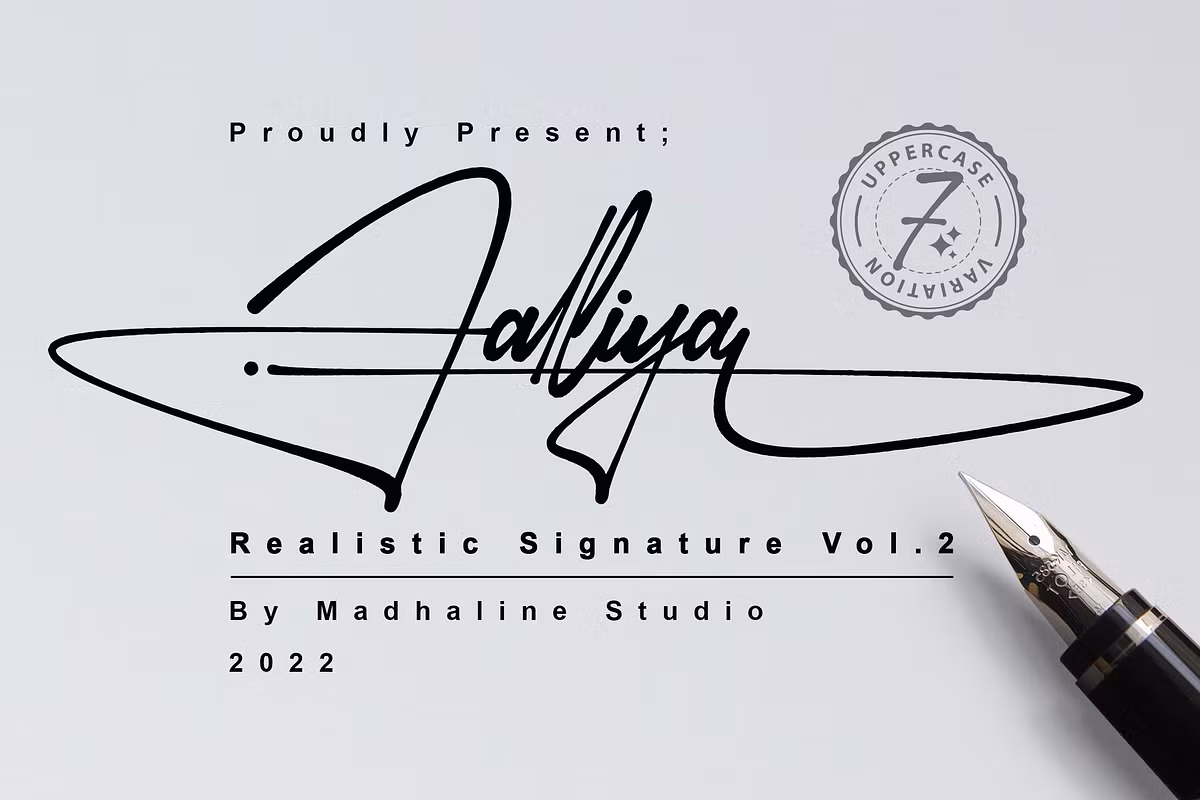
Jalliya 7 Realistic Signature Vol.2 Free Download is a stunning collection of signature-style fonts designed to mimic the natural flow and elegance of real handwriting. Perfect for personal branding, photography watermarks, wedding stationery, fashion labels, and upscale logos, this font pack brings authentic handwritten charm to your work.
Jalliya 7 Realistic Signature Vol.2 Free Download features seven beautifully crafted signature fonts, each with unique flair and character. Whether you're aiming for a refined, personal touch or a modern minimalist look, this collection offers versatile options for high-end design. Download it today and elevate your typography with the graceful style of Jalliya.